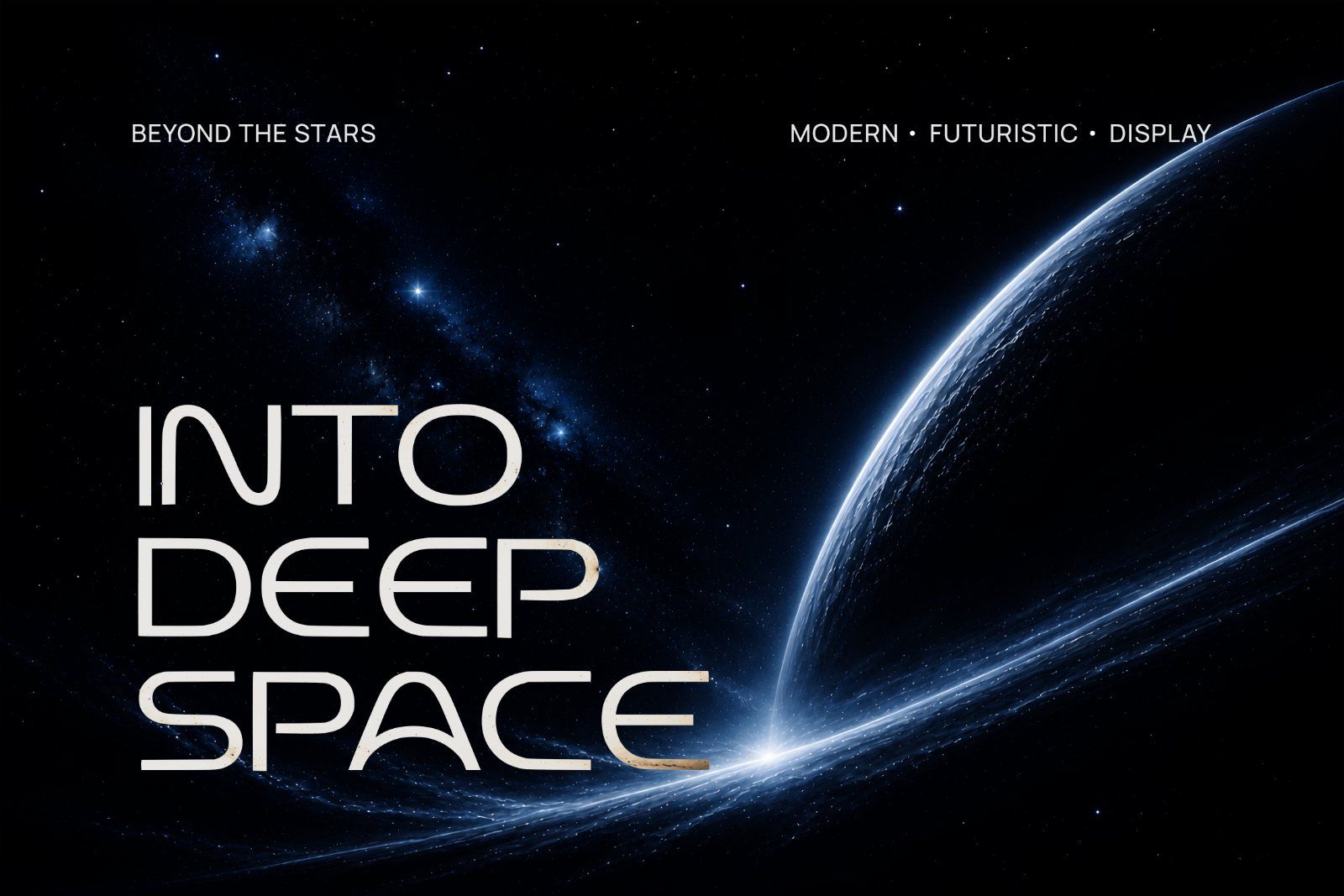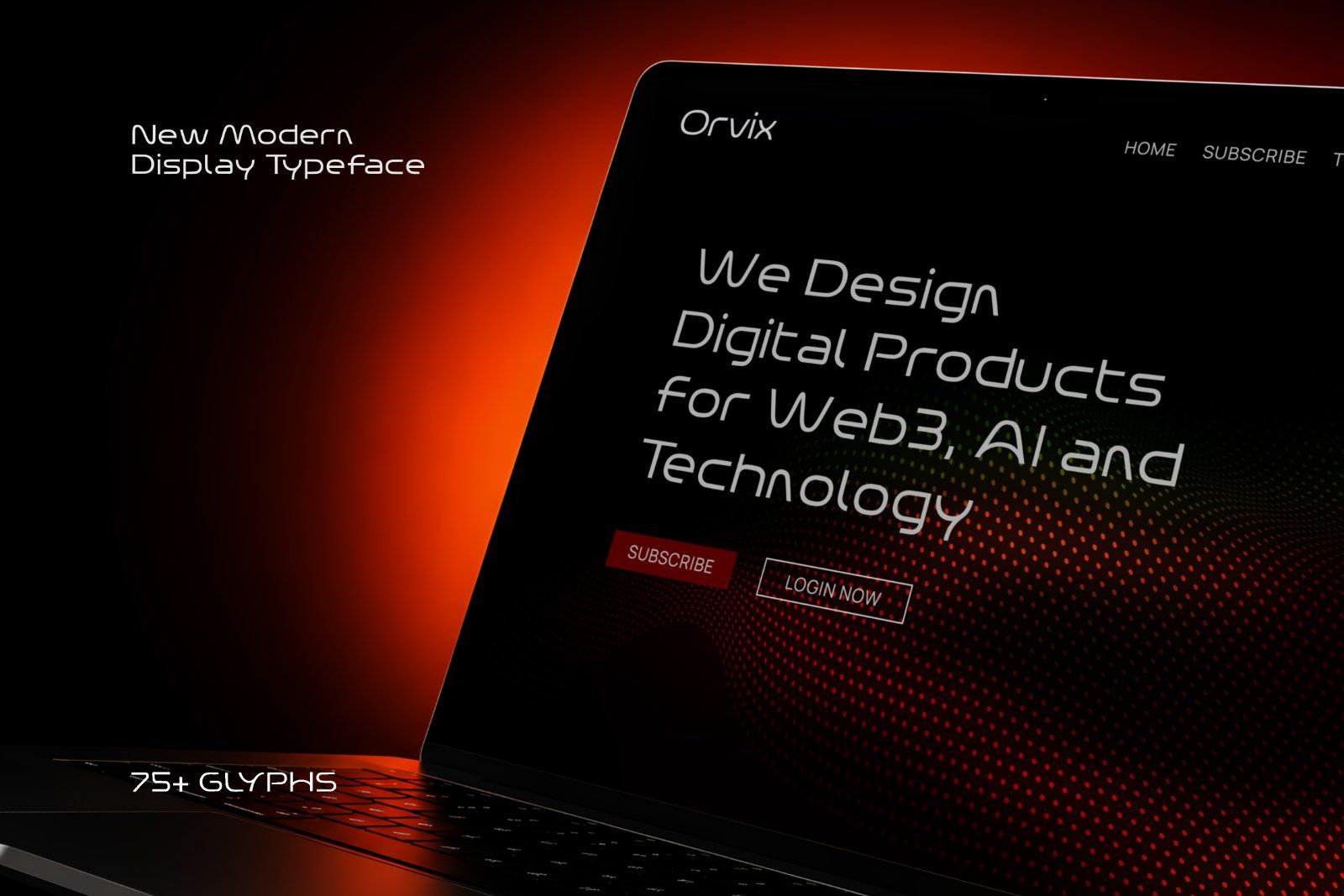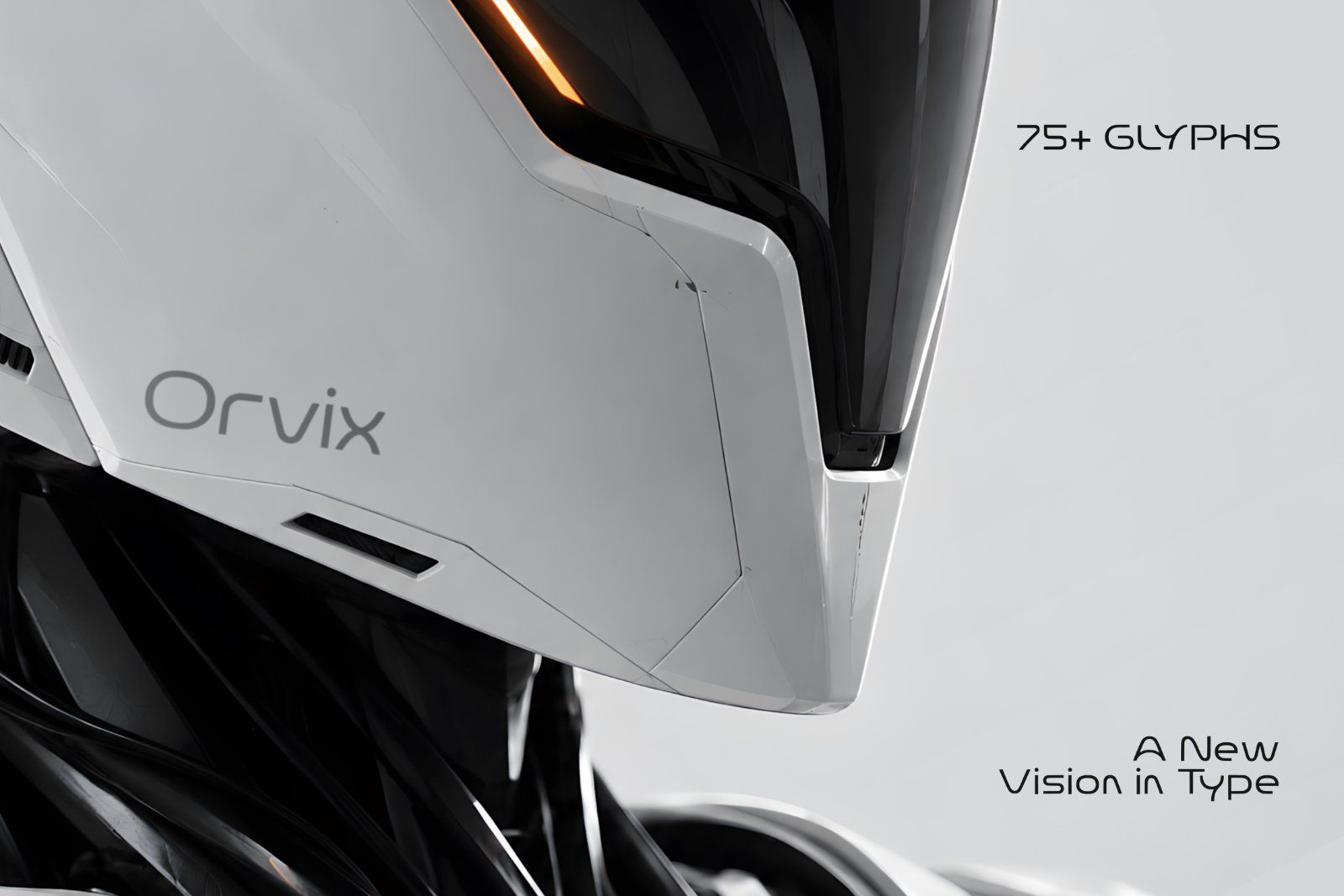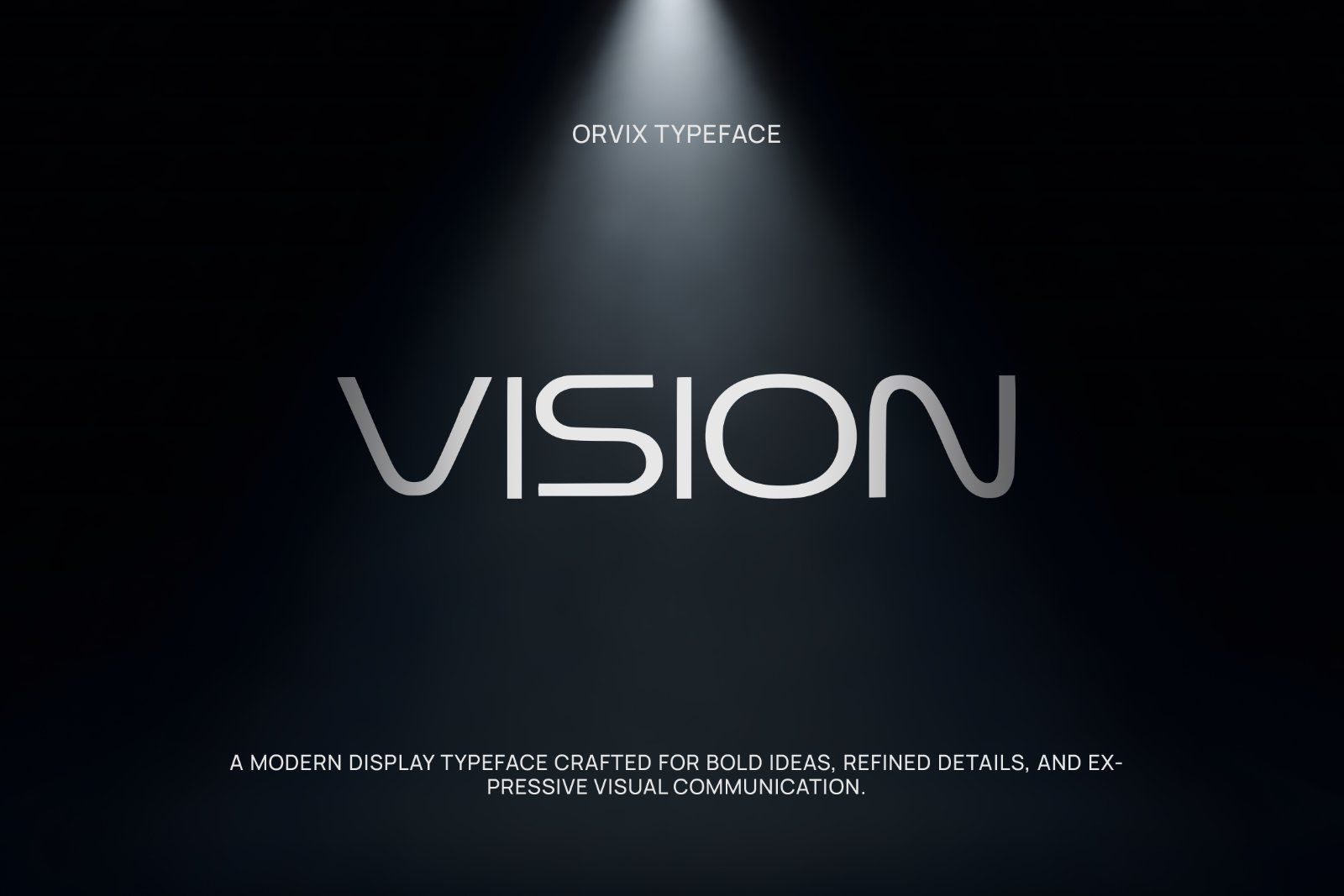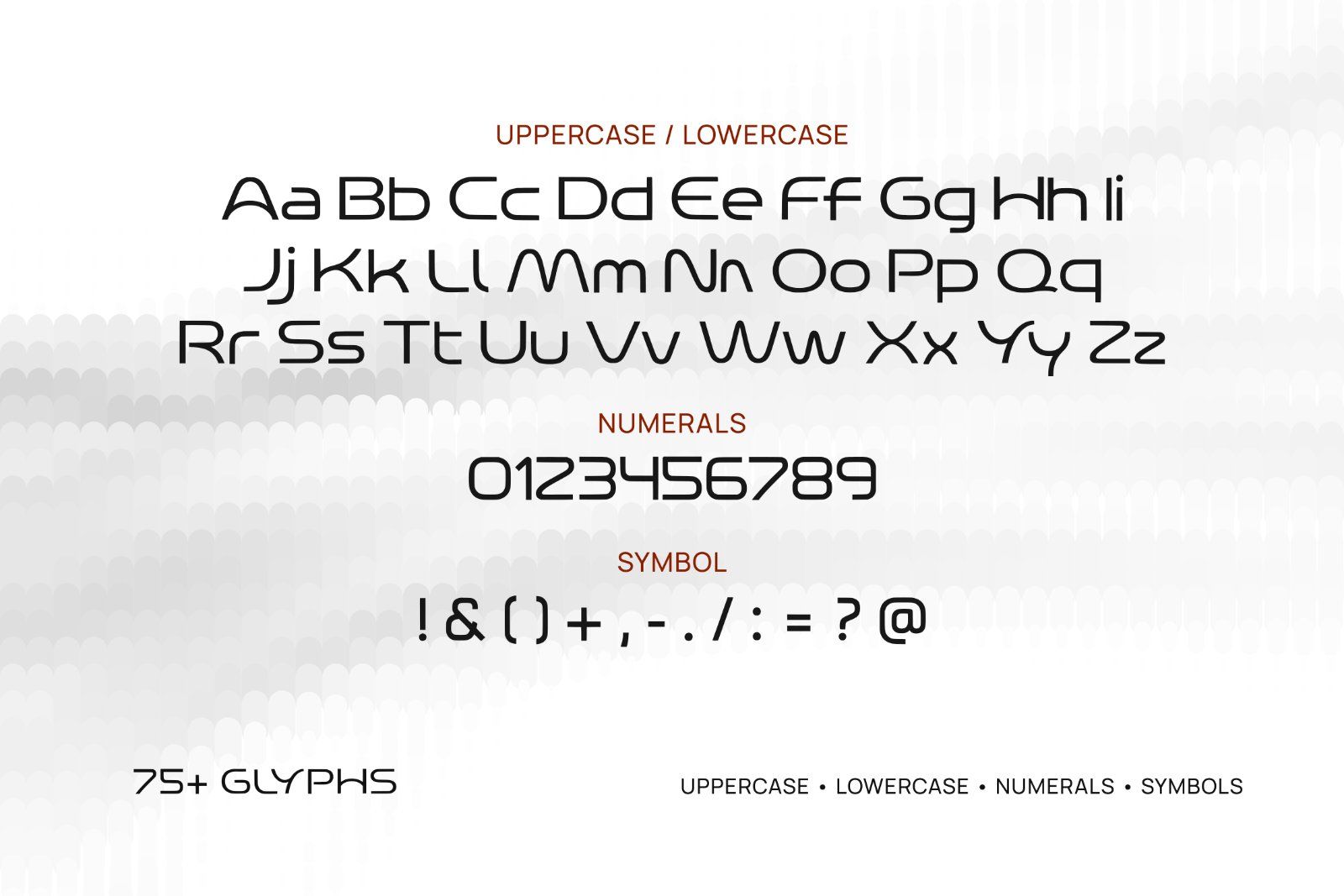
Orvix is a contemporary display typeface featuring clean geometric forms, distinctive curves, and a refined modern character. Designed to bring a futuristic yet approachable feel to branding, headlines, posters, and digital design.
• Full set of uppercase and lowercase letters
• Numbers, punctuation, and symbols
• Handcrafted rough brush textures with natural imperfections
• Brand Identity
• Logo & Wordmark Design
• Editorial Headlines
• Fashion & Lifestyle
• Technology Branding
• Digital & Web Design
Orvix brings a clean, distinctive, and contemporary voice to modern design.